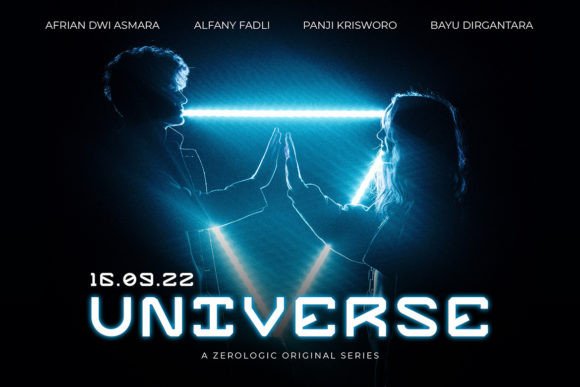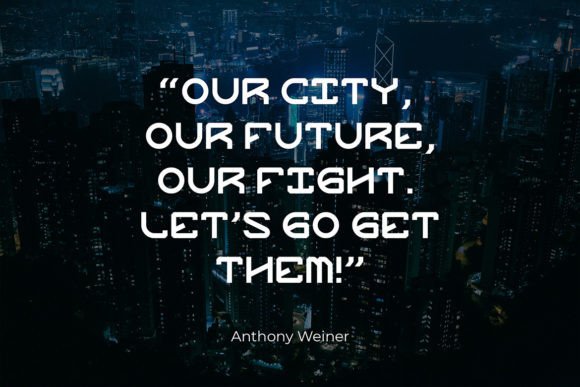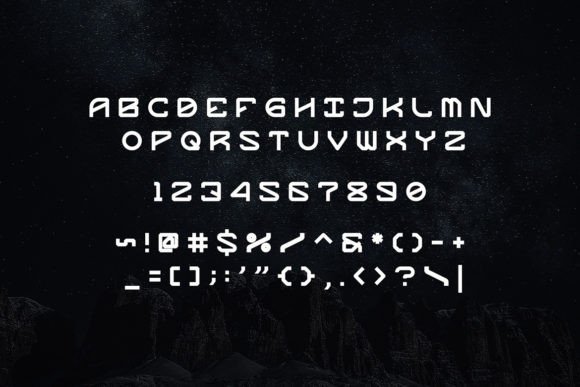
The Futuristic Gaemon Font: A Designer’s Dream Come True
Have you ever been in the middle of a design project, and suddenly, you’re stuck on finding the perfect font? I recall a project where I was tasked with creating a futuristic-themed poster, and my usual go-to fonts just weren’t cutting it. That’s when I stumbled upon the Gaemon Font, and let me tell you, it was love at first sight! 💫
An Honest Review of Gaemon Font
What I Love About Gaemon Font
- ✨ Unique and Original Design: Gaemon Font boasts a fresh and futuristic look that’s perfect for making a statement.
- ✅ Versatility: This font is incredibly versatile and can be used for a wide range of projects, from titles and typography to posters, magazines, brochures, packaging, and websites.
- 💻 Excellent for Digital Use: Gaemon Font looks amazing on screens, making it ideal for website headers, social media graphics, and more.
While Gaemon Font is an excellent choice, there are a few minor quirks to be aware of:
- ⚠️ Some Characters May Require Manual Kerning: As with any font, you might need to adjust the kerning for certain character combinations to achieve optimal results.
- 🤔 Limited Support for Non-English Characters: Gaemon Font might not support all non-English characters, so be sure to check the character set before using it for multilingual projects.
- Experiment with OpenType features, such as Stylistic Alternates and Glyphs, to add more creativity to your design.
The Backstory Behind Gaemon Font
Gaemon Font was designed with the goal of creating a unique and versatile typeface that would cater to the needs of modern designers. The designer, inspired by futuristic themes and technological advancements, crafted a font that’s both sleek and legible. With its original touch and attention to detail, Gaemon Font has become a go-to choice for designers seeking a futuristic look.
Q: What is the best way to use Gaemon Font for titles and headings?
A: Gaemon Font is perfect for titles and headings due to its bold and futuristic design. Experiment with different font sizes, colors, and OpenType features to create eye-catching typography.
Q: Can I use Gaemon Font for body text?
A: While Gaemon Font is primarily designed for titles and headings, it can be used for body text in certain contexts. However, its legibility might decrease at smaller font sizes, so it’s recommended to use it for short paragraphs or captions.
Q: Is Gaemon Font suitable for digital use?
A: Absolutely! Gaemon Font is optimized for digital use and looks great on screens. Its clean design and clear letterforms make it perfect for website headers, social media graphics, and more.